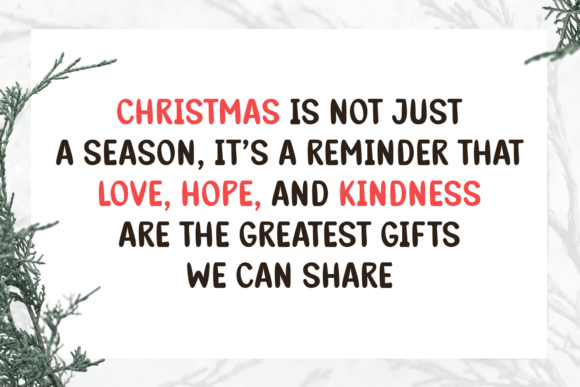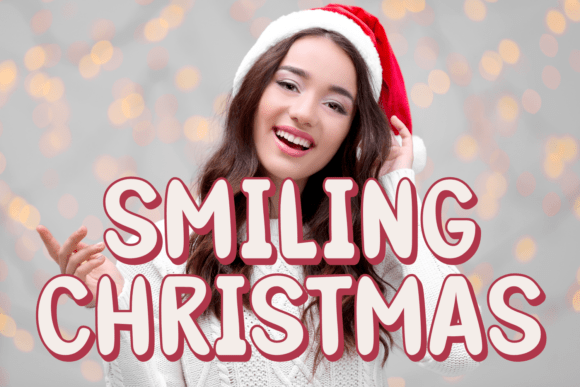
Christmas Ending Font: Add a Touch of Holiday Cheer to Your Designs
The holiday season is upon us, and with it comes the opportunity to create festive and joyful designs that capture the spirit of Christmas. One of the most effective ways to add a touch of holiday cheer to your creations is by using a font that embodies the essence of the season. This is where the “Christmas Ending” font comes in – a joyful and festive display font that is perfect for adding a hint of timeless elegance to your holiday designs.
What is Christmas Ending Font?
“Christmas Ending” is a carefully crafted display font that is designed to bring the magic of the holiday season to your designs. With its playful and stylish aesthetic, this font is ideal for use in a variety of applications, including greeting cards, invitations, and any other design that seeks to capture the essence of Christmas. Whether you’re a designer, crafter, or simply someone who loves the holiday season, this font is sure to become your go-to choice for adding a touch of festive flair to your creations.
Key Features of Christmas Ending Font
So, what makes “Christmas Ending” font so special? Here are just a few of its key features:
- Festive and Joyful Aesthetic: This font is designed to evoke the feeling of joy and celebration that comes with the holiday season. Its playful and stylish letters are sure to add a touch of festive cheer to any design.
- Timeless Elegance: While “Christmas Ending” font is certainly festive, it’s also designed to have a timeless quality that will ensure your designs don’t look dated. This makes it perfect for use in a variety of applications, from traditional holiday designs to more modern and contemporary creations.
- Highly Versatile: This font is perfect for use in a wide range of applications, including greeting cards, invitations, posters, and any other design that seeks to capture the essence of the holiday season.
How to Use Christmas Ending Font in Your Designs
Using “Christmas Ending” font in your designs is easy. Here are a few tips to get you started:
- Pair it with Other Fonts: For maximum impact, try pairing “Christmas Ending” font with other fonts that complement its playful and stylish aesthetic. Some good options might include serif fonts, script fonts, or other display fonts.
- Use it in Headlines and Titles: This font is perfect for use in headlines and titles, where its festive and joyful aesthetic can really shine. Try using it to add a touch of holiday cheer to your blog posts, social media updates, or marketing materials.
- Add it to Your Holiday Stationery: “Christmas Ending” font is a great choice for holiday stationery, including greeting cards, invitations, and gift tags. Try using it to add a touch of festive flair to your holiday correspondence.
Why Designers and Crafters Love Christmas Ending Font
So, why do designers and crafters love “Christmas Ending” font? Here are just a few reasons:
- Easy to Read: Despite its playful and stylish aesthetic, “Christmas Ending” font is still highly legible, making it perfect for use in a wide range of applications.
- Customizable: This font is highly customizable, allowing you to adjust its size, color, and style to suit your design needs.
- Unique and Eye-Catching: With its festive and joyful aesthetic, “Christmas Ending” font is sure to grab attention and add a touch of holiday cheer to your designs.
If you’re looking for a font that embodies the spirit of the holiday season, look no further than “Christmas Ending” font. With its playful and stylish aesthetic, this font is perfect for adding a touch of festive flair to your designs. Whether you’re a designer, crafter, or simply someone who loves the holiday season, this font is sure to become your go-to choice for capturing the essence of Christmas. So why wait? Download “Christmas Ending” font today and start adding a touch of holiday cheer to your creations!